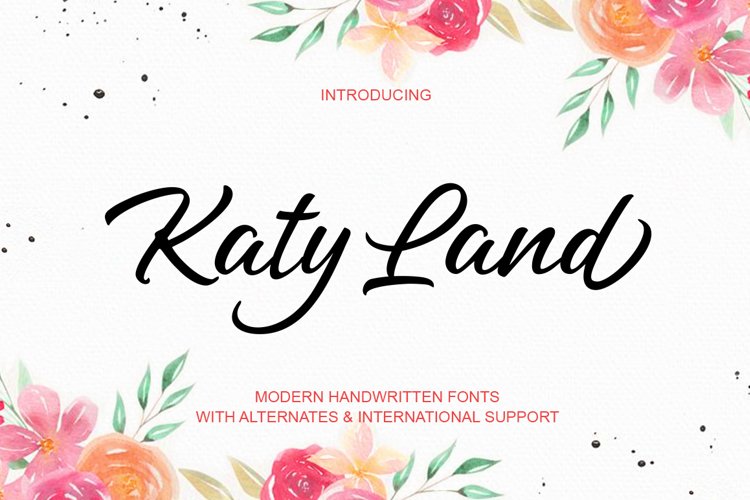
Katy Land Script is a modern handwritten font written in soft movements using a special pen, this font is perfect for logos, wedding invitations, T-shirts, product packaging, greeting cards, brands, blogs, branding, business cards,or whatever design you think. Can be used for various purposes.
if you want to use it for your work, this font can be used easily and simply because there are many features in it to load a complete set of lowercase letters and include initial and terminal letters, alternatives, binders and many language support.